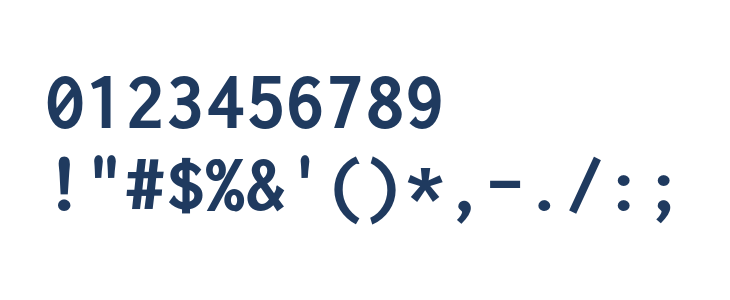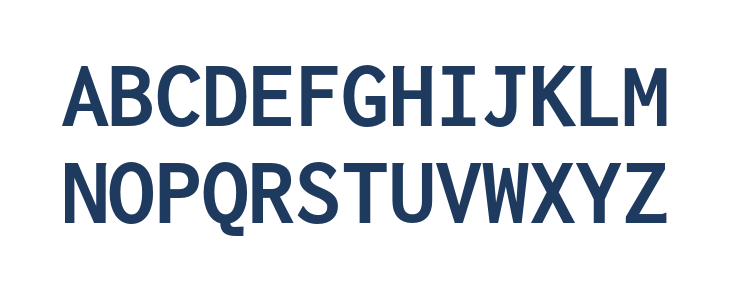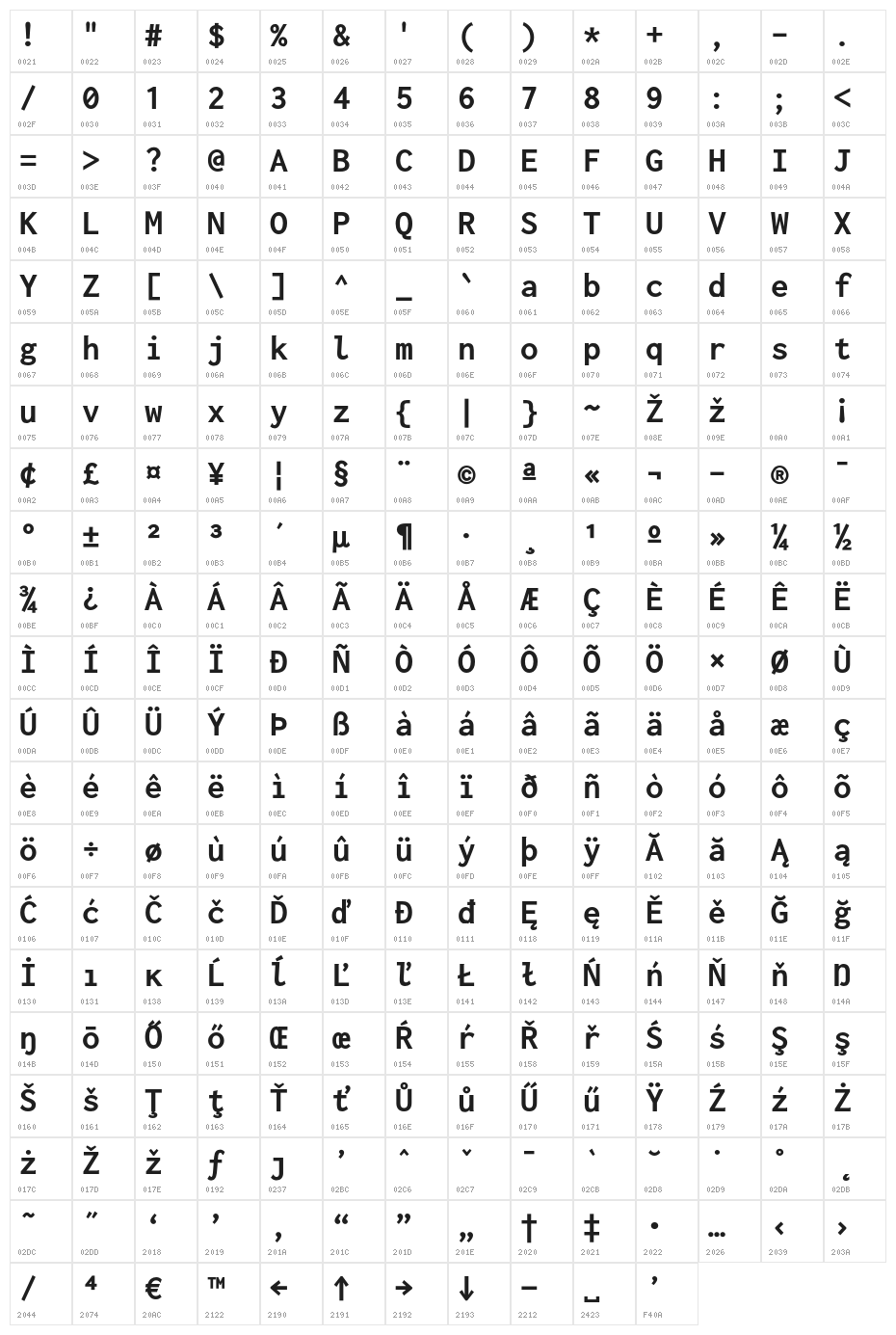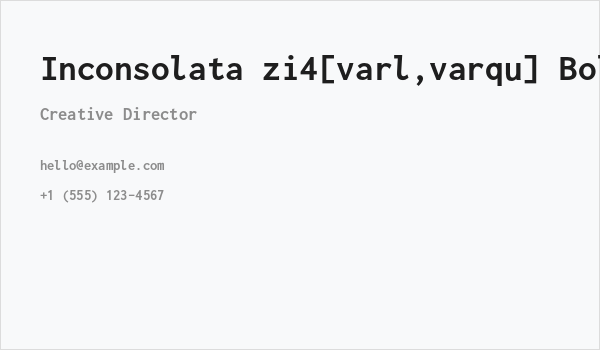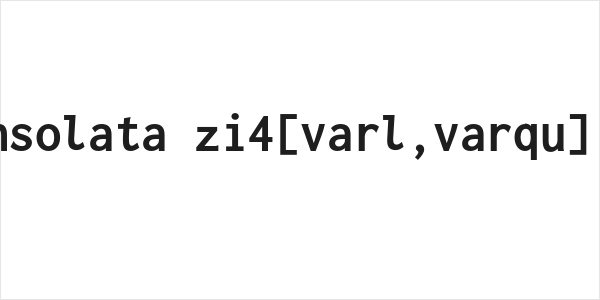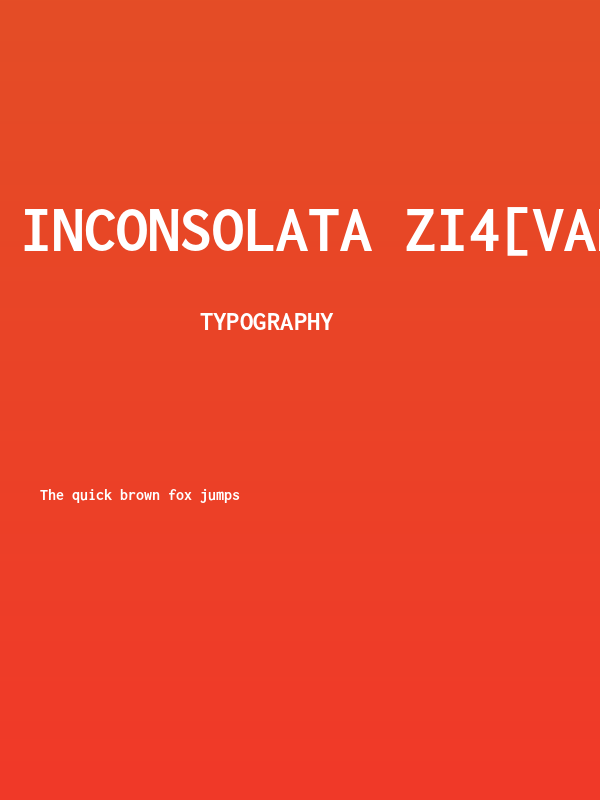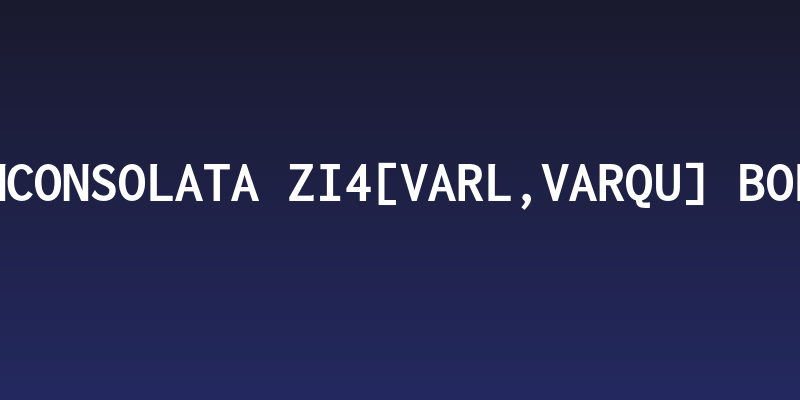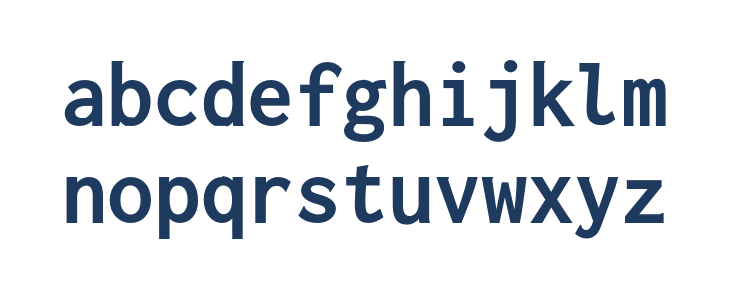
Inconsolata zi4[varl,varqu] Bold Font
Inconsolata zi4[varl,varqu] Bold Description
This font features a monospaced design with a clean and modern aesthetic. The characters are evenly spaced, providing a uniform appearance that enhances readability. The bold weight adds emphasis and strength, making it suitable for various applications. The strokes are consistent in thickness, offering a medium contrast that balances clarity with style. Its simplicity and precision make it ideal for coding, technical documents, and any project requiring a structured and professional look.
| Use Case | Coding, Technical documents, User interfaces |
| Proposed Projects | Ideal for coding, technical documents, user interfaces, and any project requiring clarity and precision. |